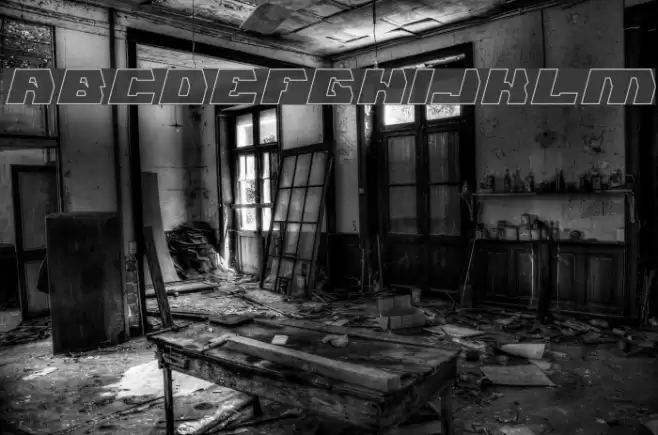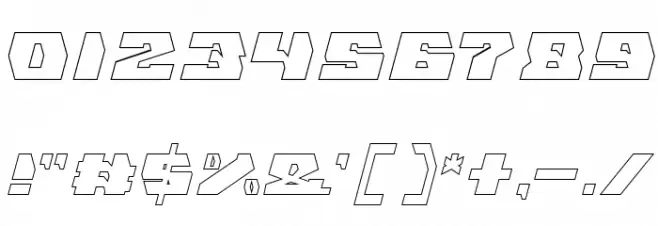
GLADIATOR SPORT-Hollow Font
GLADIATOR SPORT-Hollow Description
This font features a bold, hollow design with a distinctly geometric and angular style. Each character is outlined, creating a striking visual effect that emphasizes its sporty and dynamic nature. The uppercase and lowercase letters maintain a consistent structure, with sharp edges and a futuristic appearance. Numbers and special characters follow the same design principles, ensuring uniformity across all glyphs. The font's hollow aspect allows for creative use of background colors or textures to shine through, adding versatility to its application.
A bold, hollow, geometric font with a sporty and dynamic style from Uncategorized fonts.
- Proposed Projects: Ideal for sports branding, event posters, dynamic logos, and modern digital interfaces.